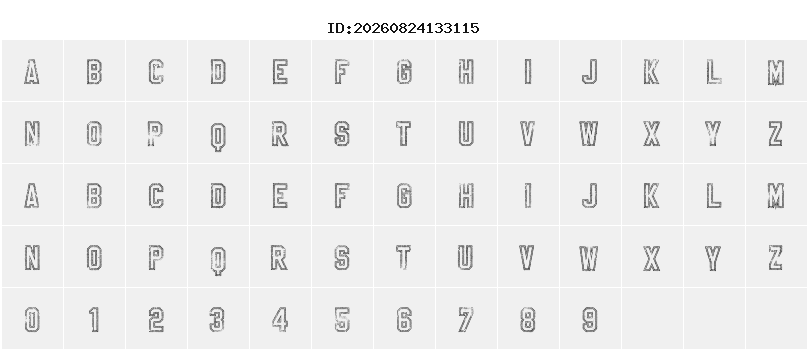
Sablon Up Preview
• Font Name: Sablon Up
• Font Style: Outline Alt
• Full Font Name: SablonUp-OutlineAlt
• Manufacturer: Youssef Habchi
About Sablon Up.otf
Sablon Up.otf is a modern, elegant sans-serif font designed for ultimate readability and visual harmony. Perfect for branding, headlines, web design, and print materials.